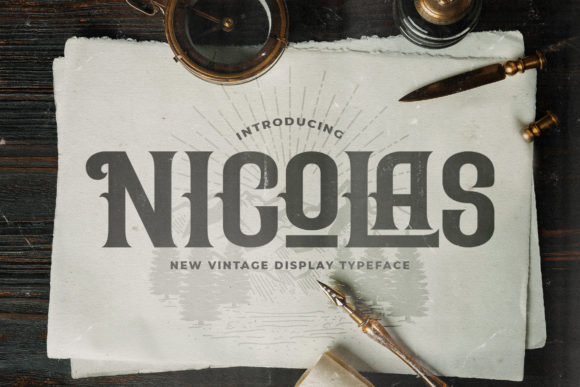
Introducing Nicolas Font, the ultimate choice for all your comic lettering needs! Crafted by the talented team at StringLabs, this unique and stylish vintage blackletter font is here to elevate your designs and captivate your audience.
With its timeless elegance and versatile appeal, Nicolas Font is guaranteed to make a lasting impression. Whether you're designing a logo, creating eye-catching headlines, or adding a touch of sophistication to your website, this font is the perfect companion for any creative project.
Immerse yourself in the rich history and artistic charm of blackletter typography. Nicolas Font embodies the essence of this classic style, infusing it with a modern twist that effortlessly bridges the gap between tradition and innovation. Every letter has been meticulously crafted to exude a sense of authenticity and grandeur, making it ideal for projects that require a touch of nostalgia.
But Nicolas Font offers so much more than just aesthetic appeal. With its extensive range of characters, including ligatures and alternate glyphs, you have the freedom to truly customize your designs and bring your creative vision to life. Let your imagination run wild as you explore the countless possibilities that this font offers.
This isn't just any font; it's the best font for comic lettering. The bold and distinctive nature of Nicolas Font adds depth and personality to your comic book characters, ensuring they leap off the page with energy and charisma. Each stroke captures the essence of comic book nostalgia, giving your readers an immersive and engaging experience.
Experience the magic of Nicolas Font and let your imagination soar. Embrace its vintage charm, unleash its creative potential, and leave a lasting impression on your audience. Elevate your designs to new heights with this captivating blackletter font that refuses to go unnoticed.